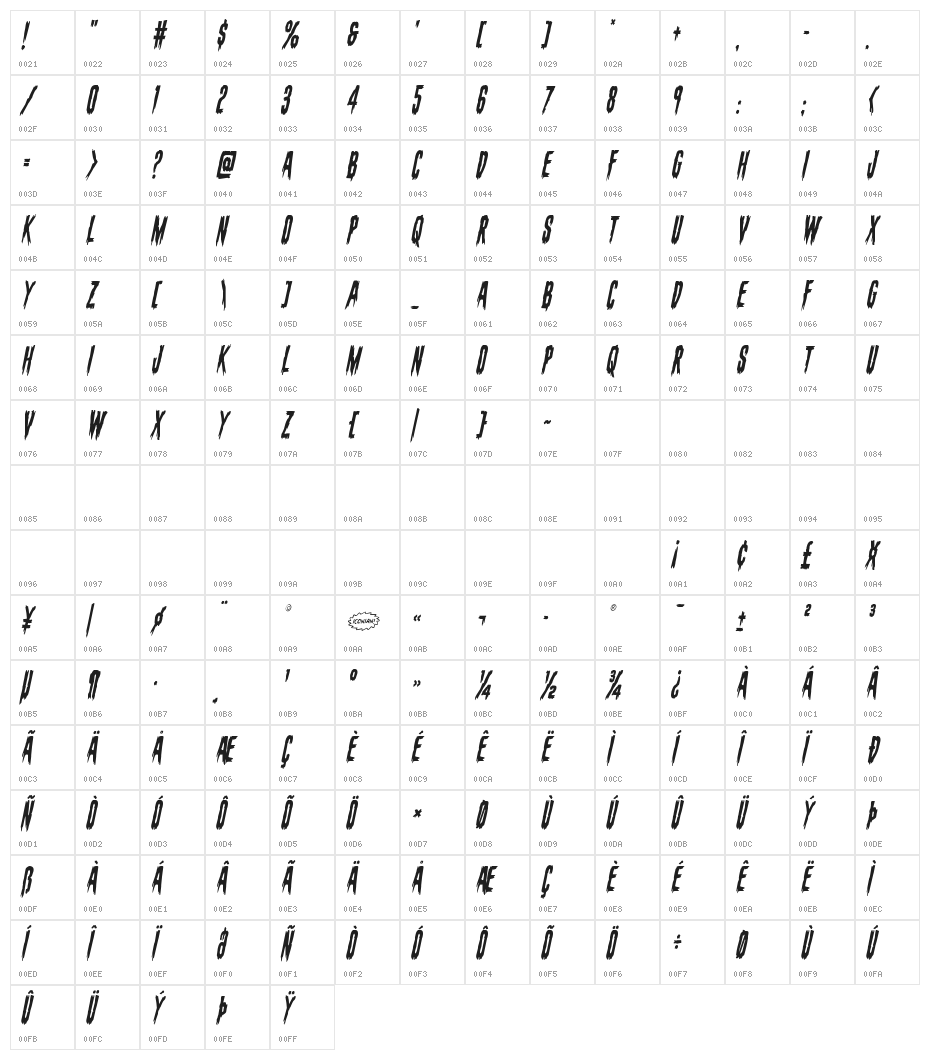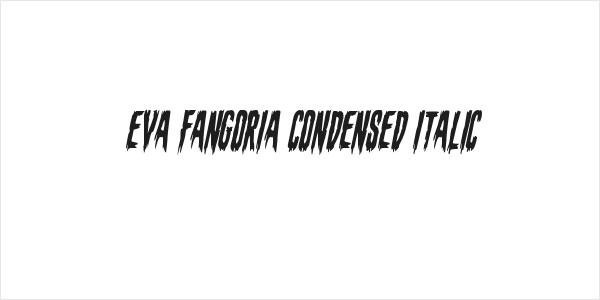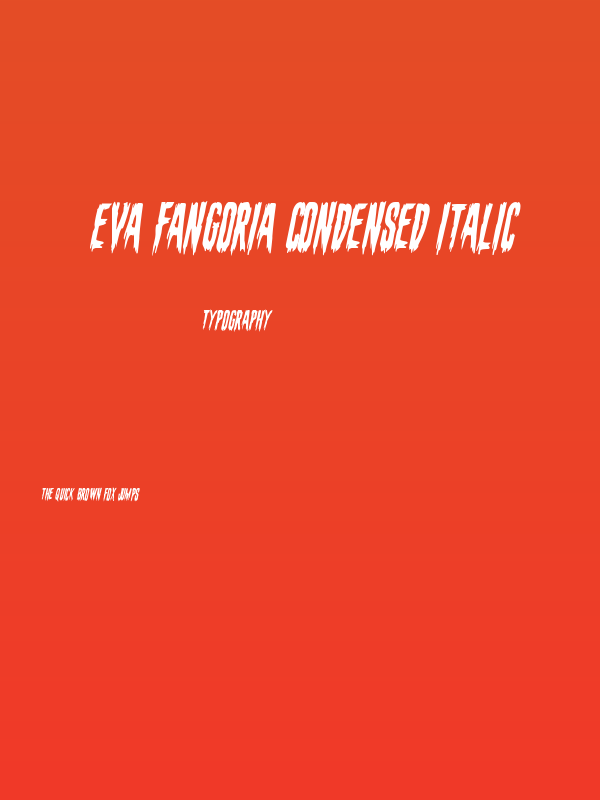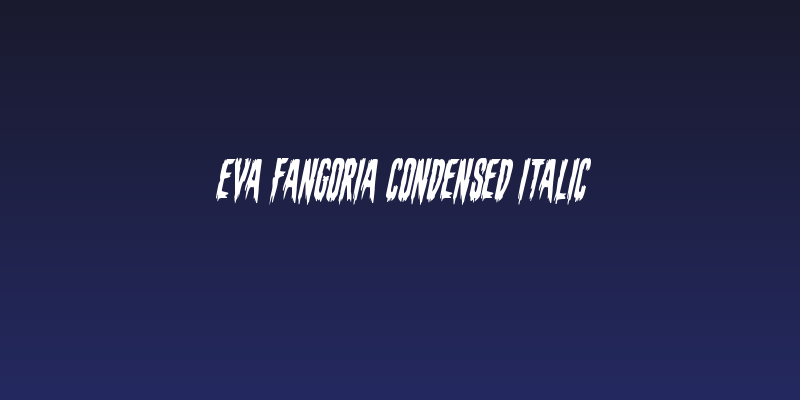
Eva Fangoria Condensed Italic Font
Eva Fangoria Condensed Italic Description
This font features a bold and dynamic style with sharp, jagged edges that give it a fierce and energetic appearance. The letters are condensed and italicized, creating a sense of movement and urgency. The strokes are uneven, adding a raw and edgy feel, reminiscent of horror or thriller themes. The uppercase and lowercase letters maintain a consistent style, with numbers and special characters following the same aesthetic. This font is ideal for projects that require a dramatic and impactful visual presence.
| Proposed Projects | Perfect for horror movie posters, Halloween event flyers, edgy album covers, and video game titles. |